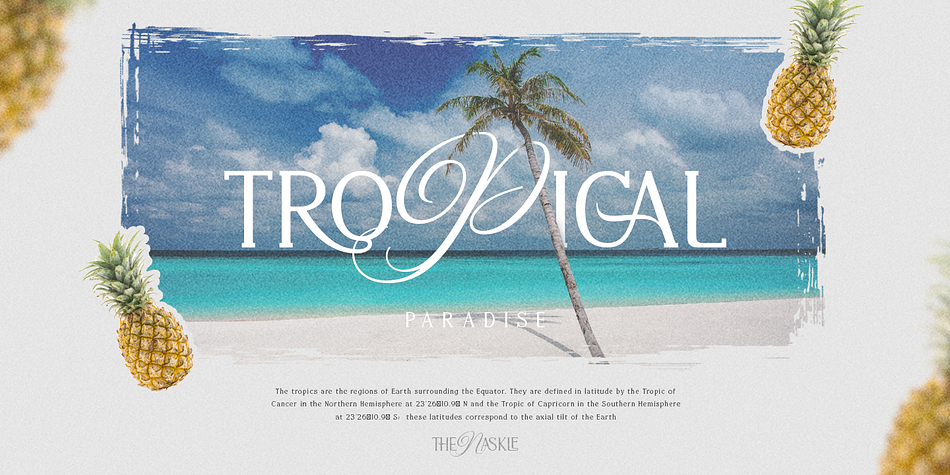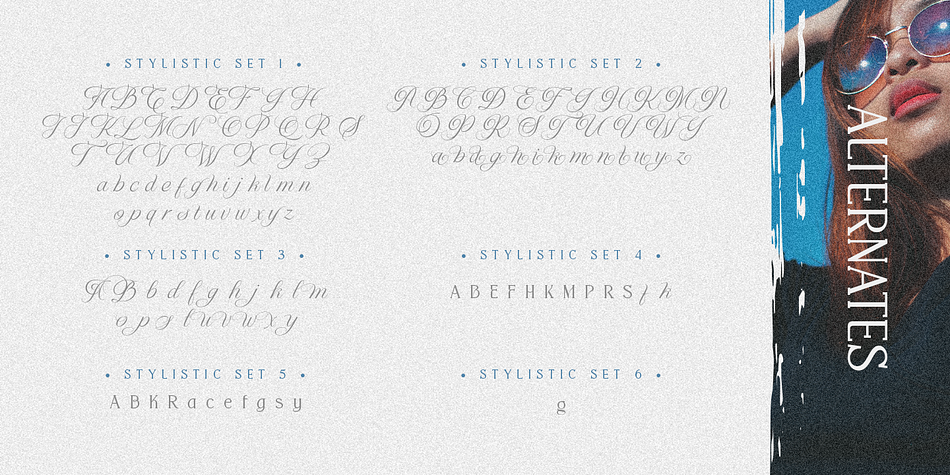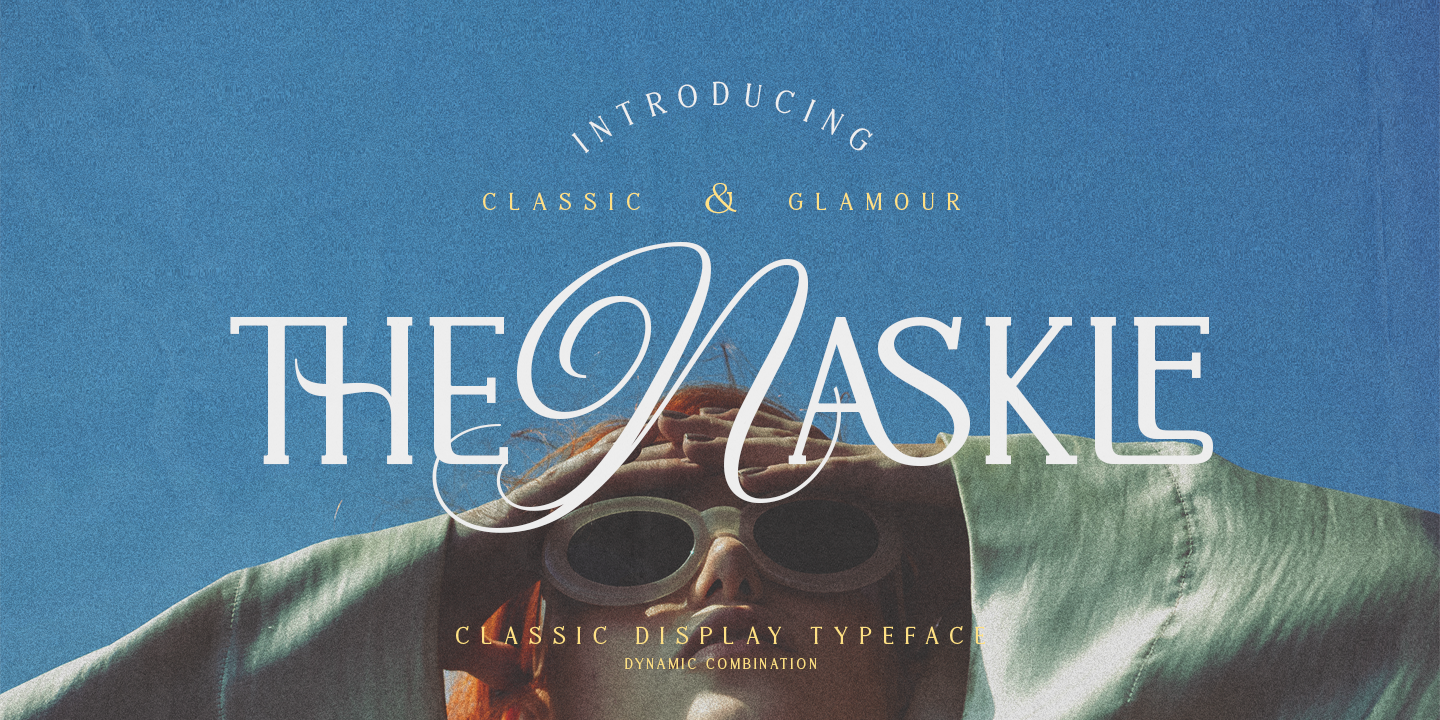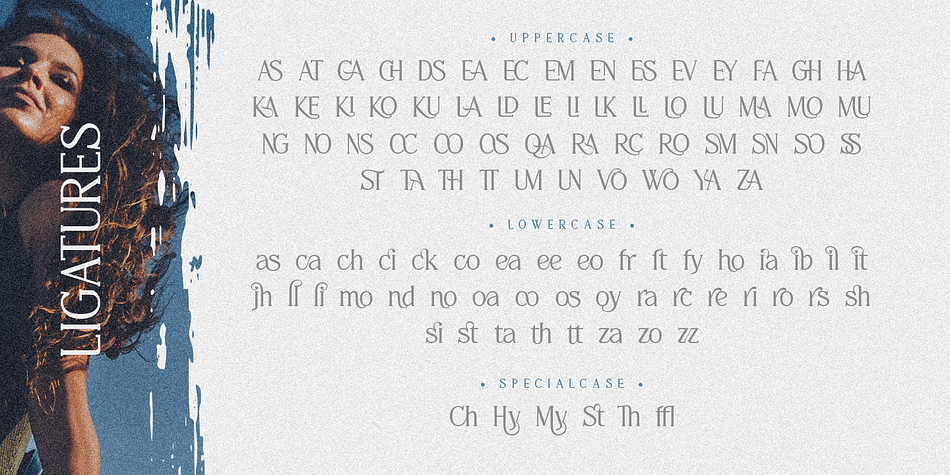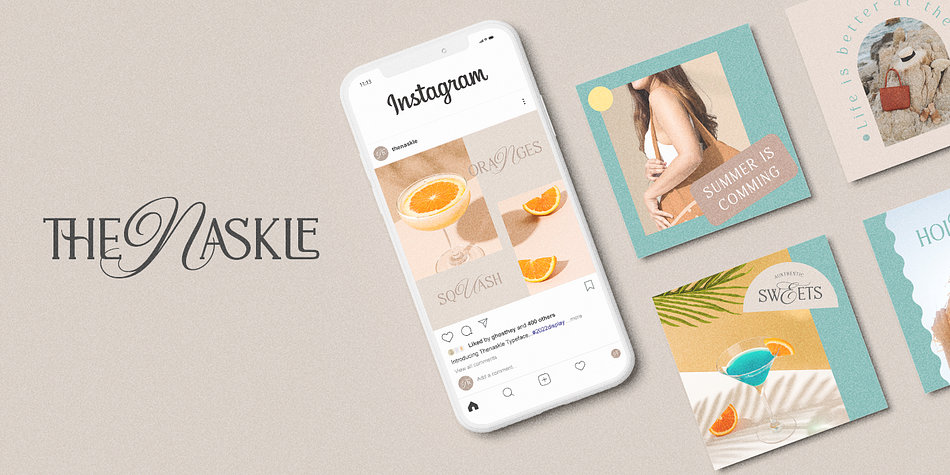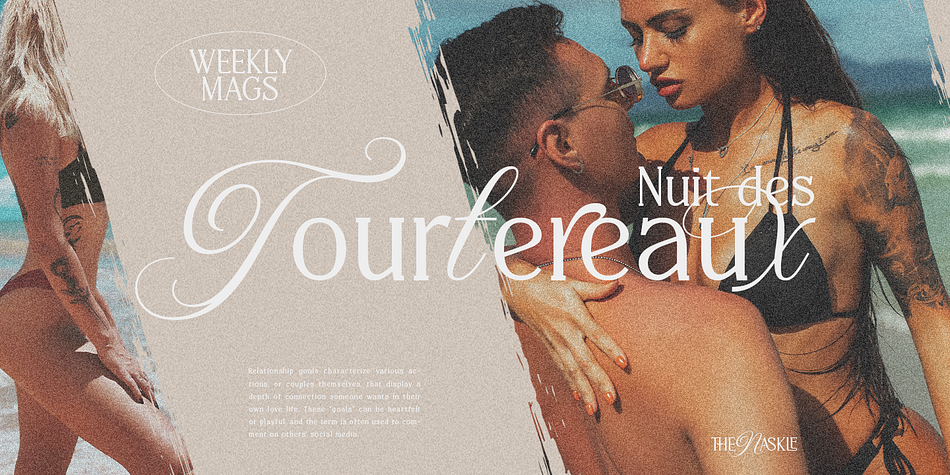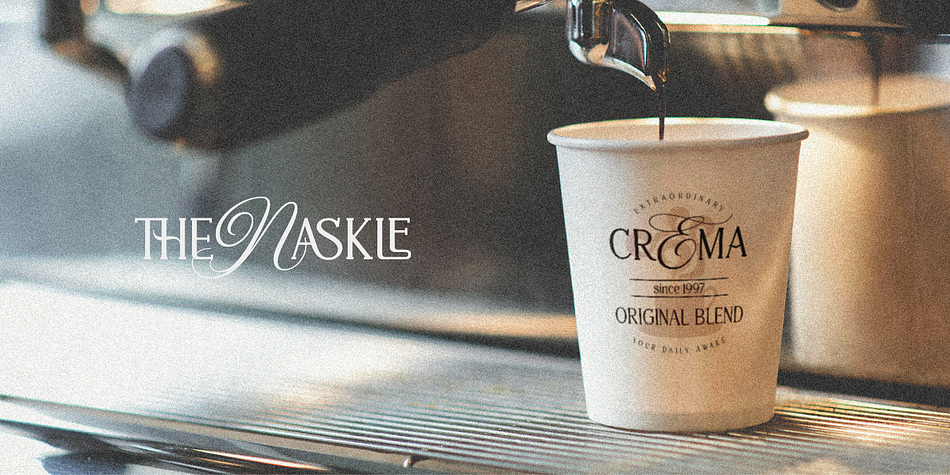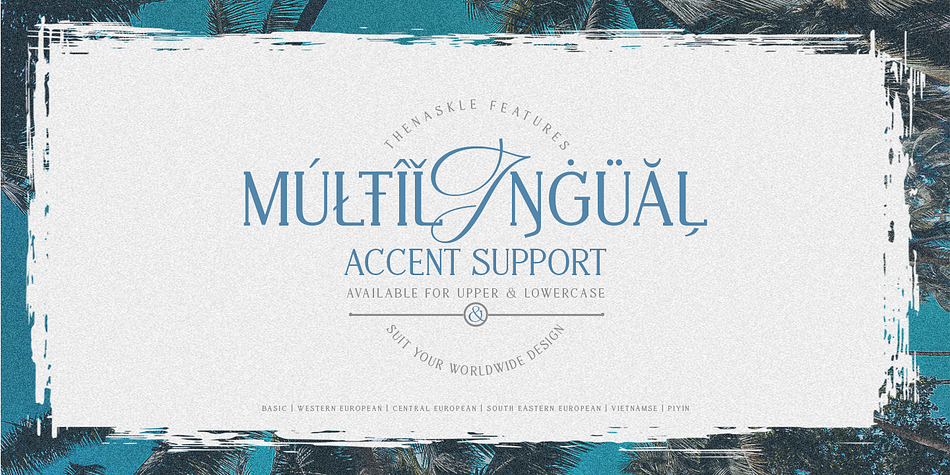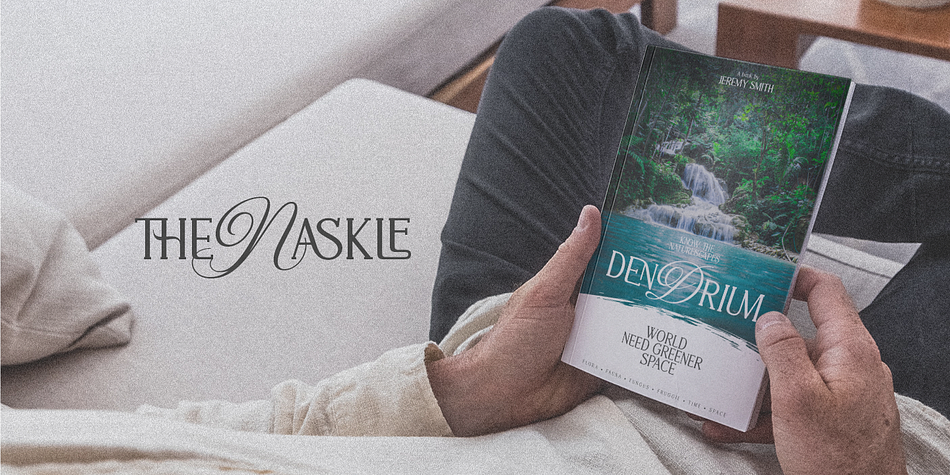
Designed by Alit Suarnegara, Thenaskle is a serif font family published by Alit Design.
Presenting the THENASKLE typeface from alitdesign.
THENASKLE font is designed by combining an elegant script font with a simple and charming serif font style. This font has a modern serif style combined with elegant script-style letters that make the THENASKLE font look different and unique from the fonts you have on your element design collection.
THENASKLE is perfect for magazine cover designs, brochures, flyers. Instagram ads, Canva Design and so on with unique and modern concepts. besides that this font is very easy to use both in design and non-design programs because everything changes and glyphs are supported by Unicode (PUA).
The “THENASKLE"contains 688 glyphs with many unique and interesting alternative options.
Language Support : Latin, Basic, Western European, Central European, South European,Vietnamese.